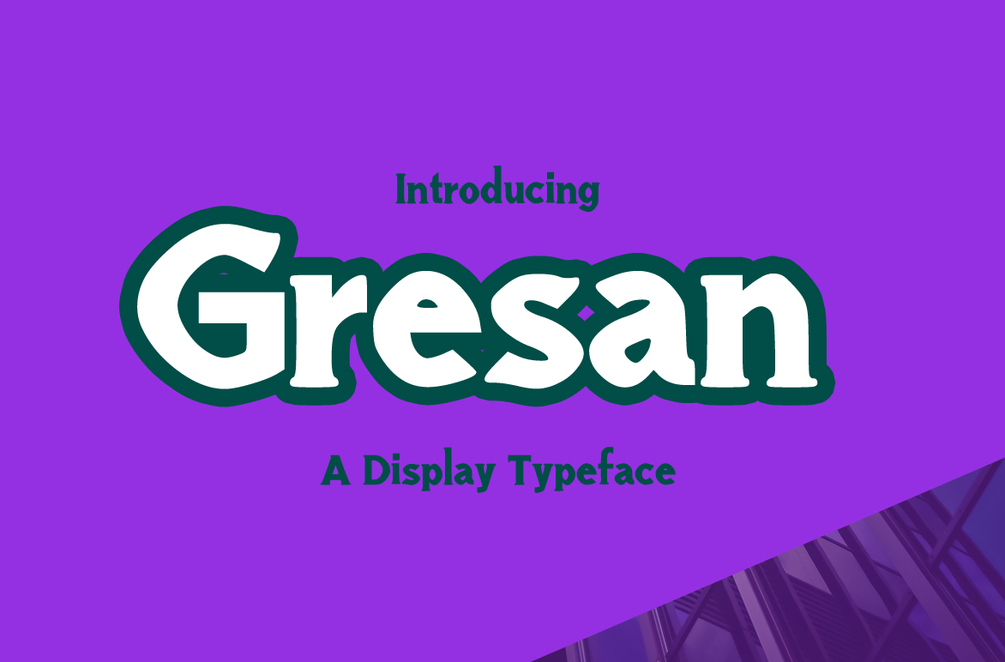
Gresan Typeface
Gresan is a brand new modern font. Gresan is perfectly suited to stationery, logos, t-shirt, paper, print design, website header, photo frame, flyer, music cover, poster, image slider and much more.